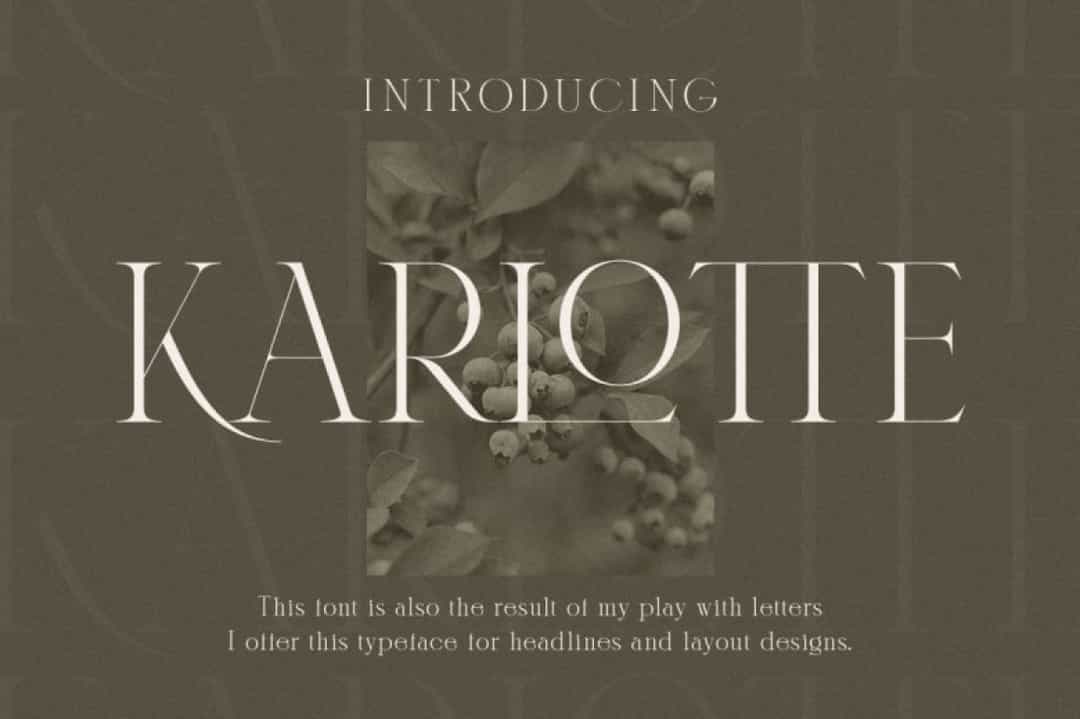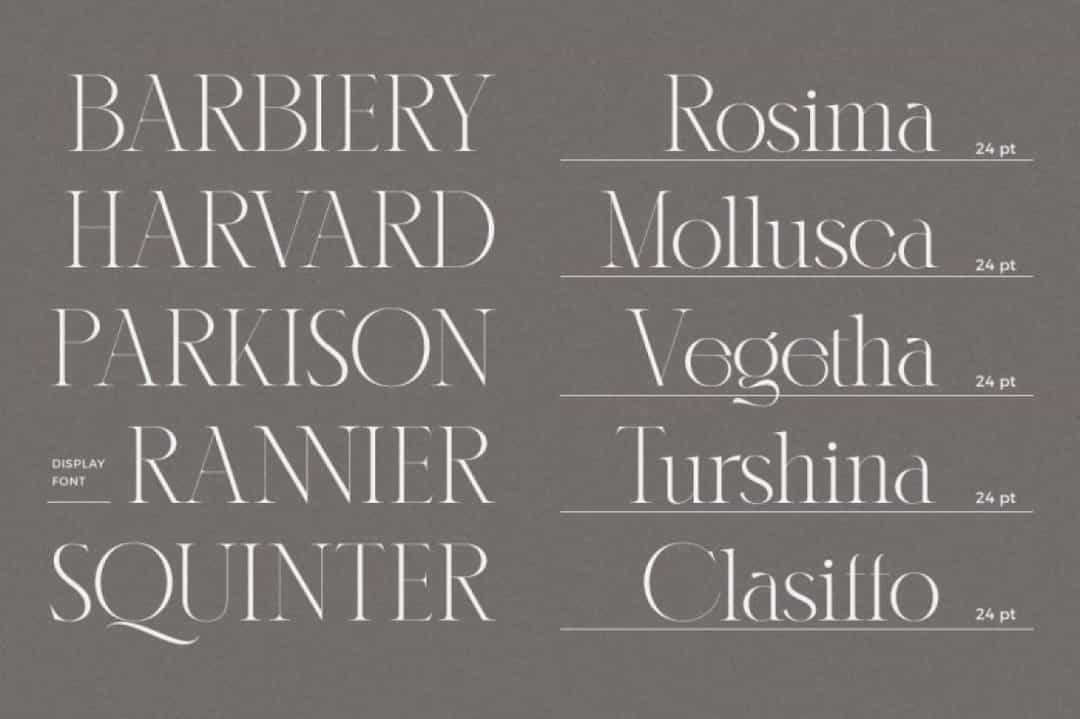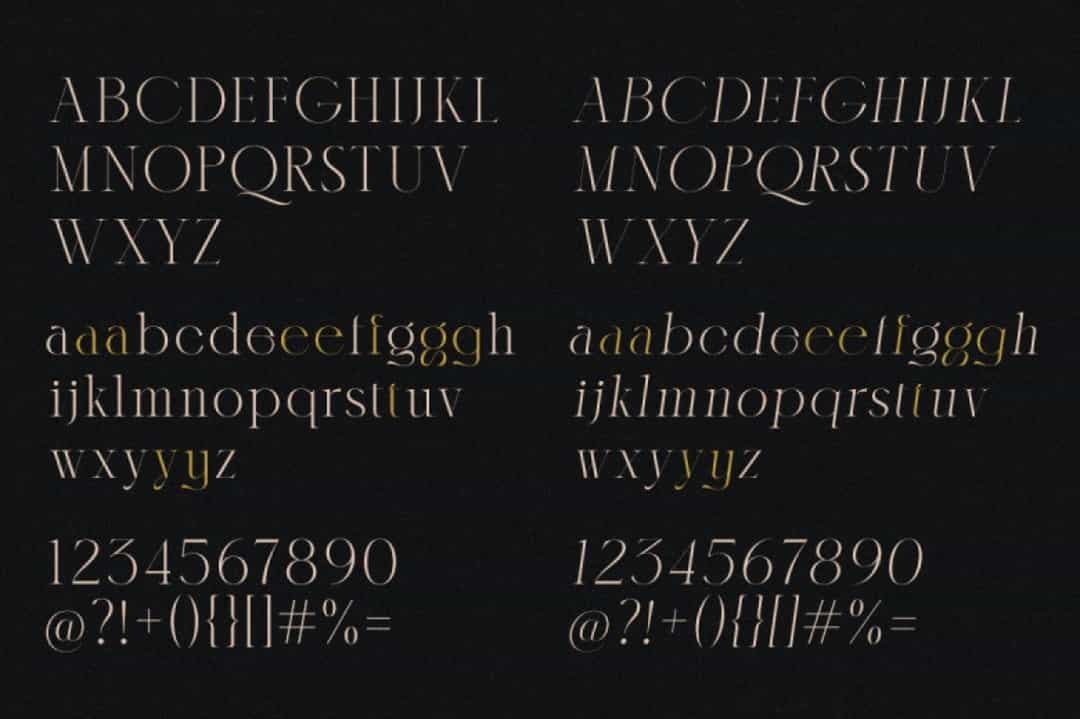
Karlotte Font is now officially unveiled! Designed with precision and care, this modern serif typeface gives each curve an intimate feeling with elegant edges for a sophisticated yet classy appearance. Each curve boasts intimate proportions while still remaining elegant – an indication of top quality design that delivers exquisite feel.